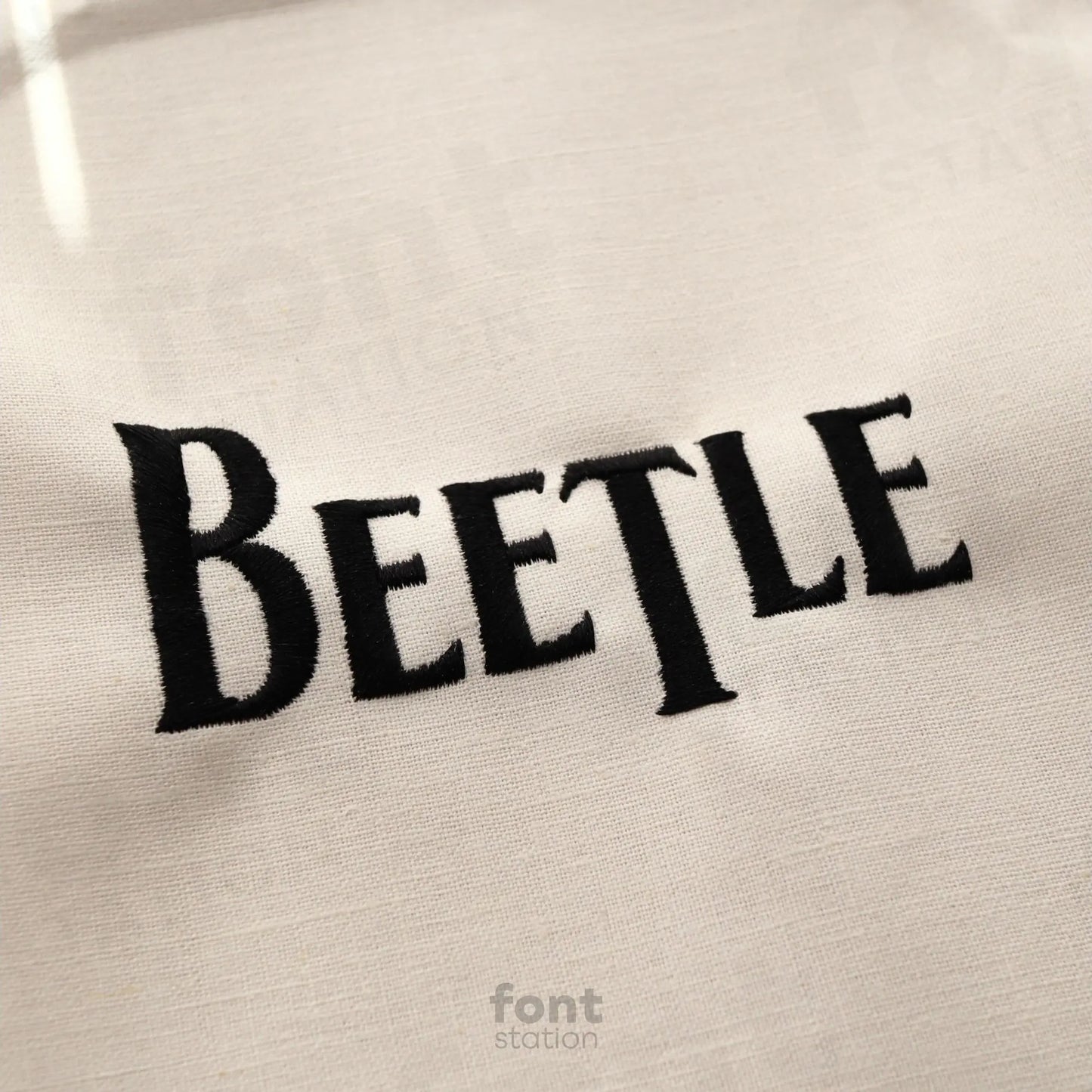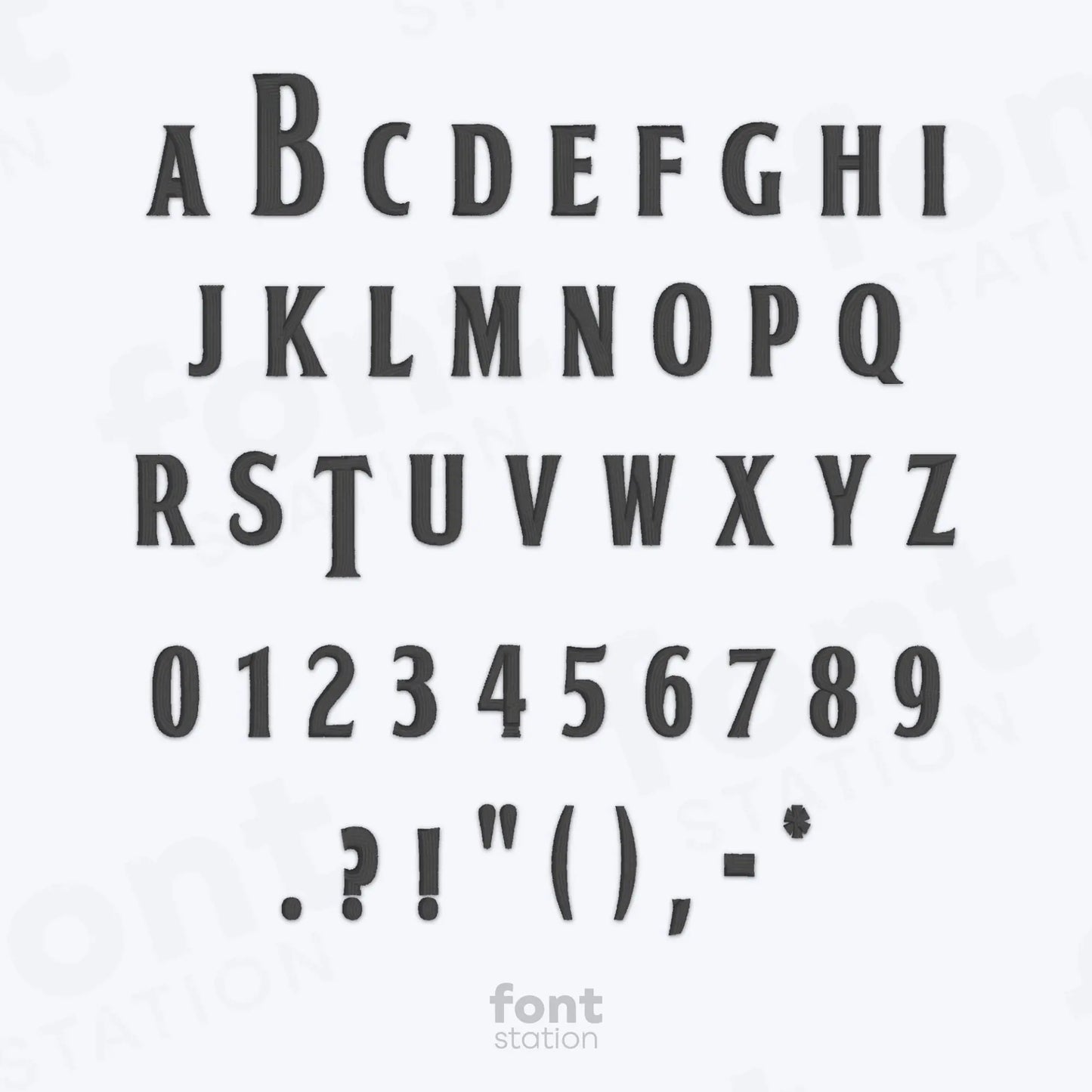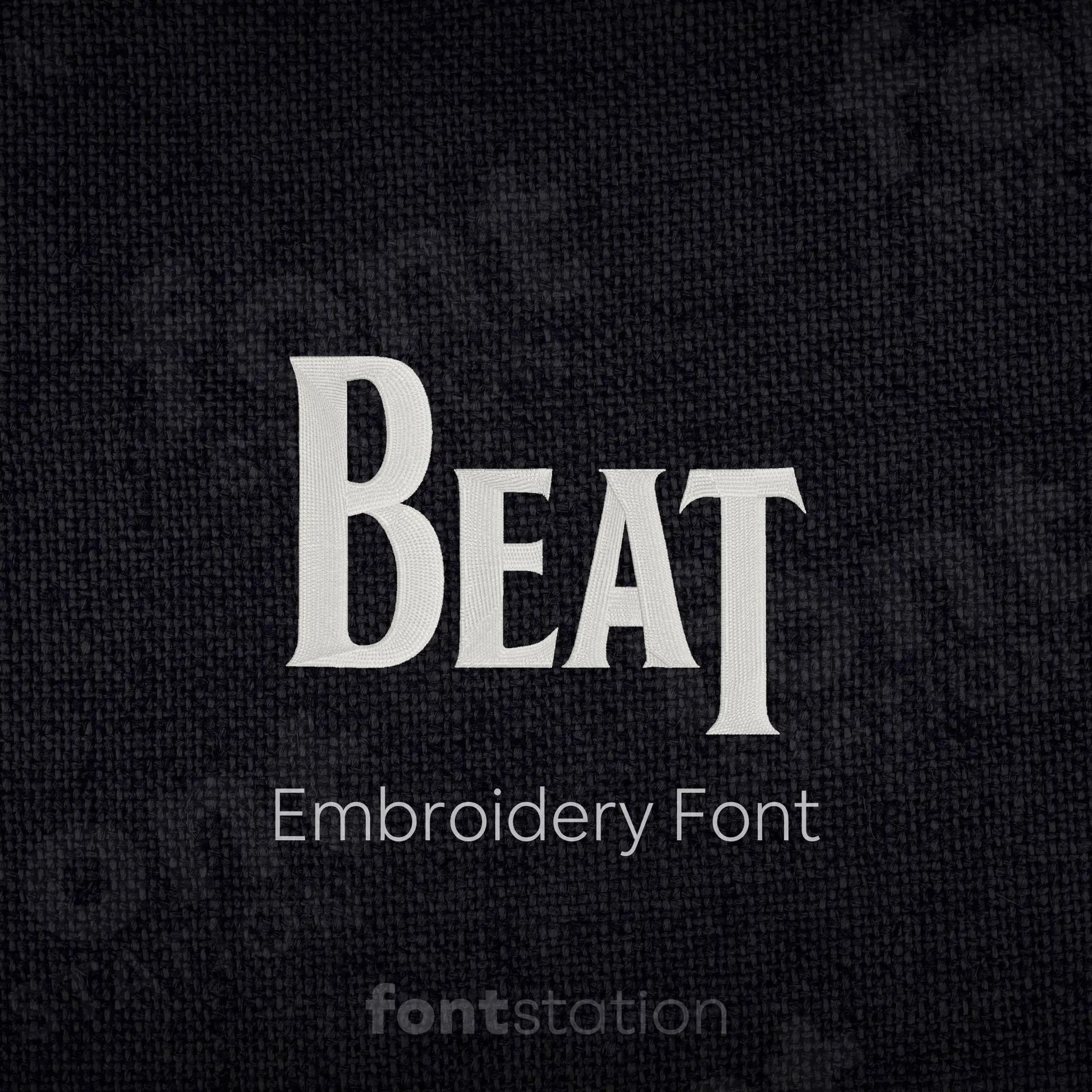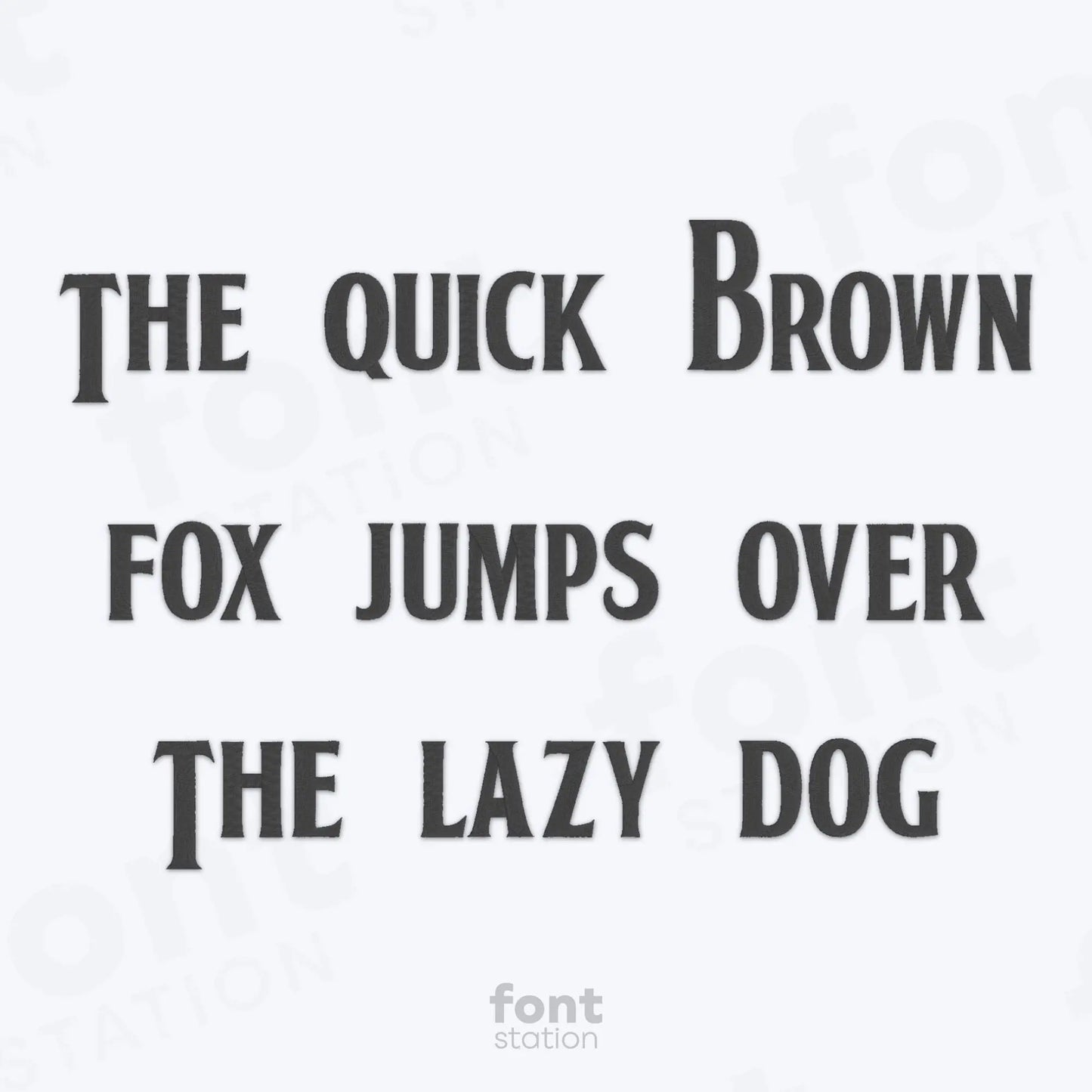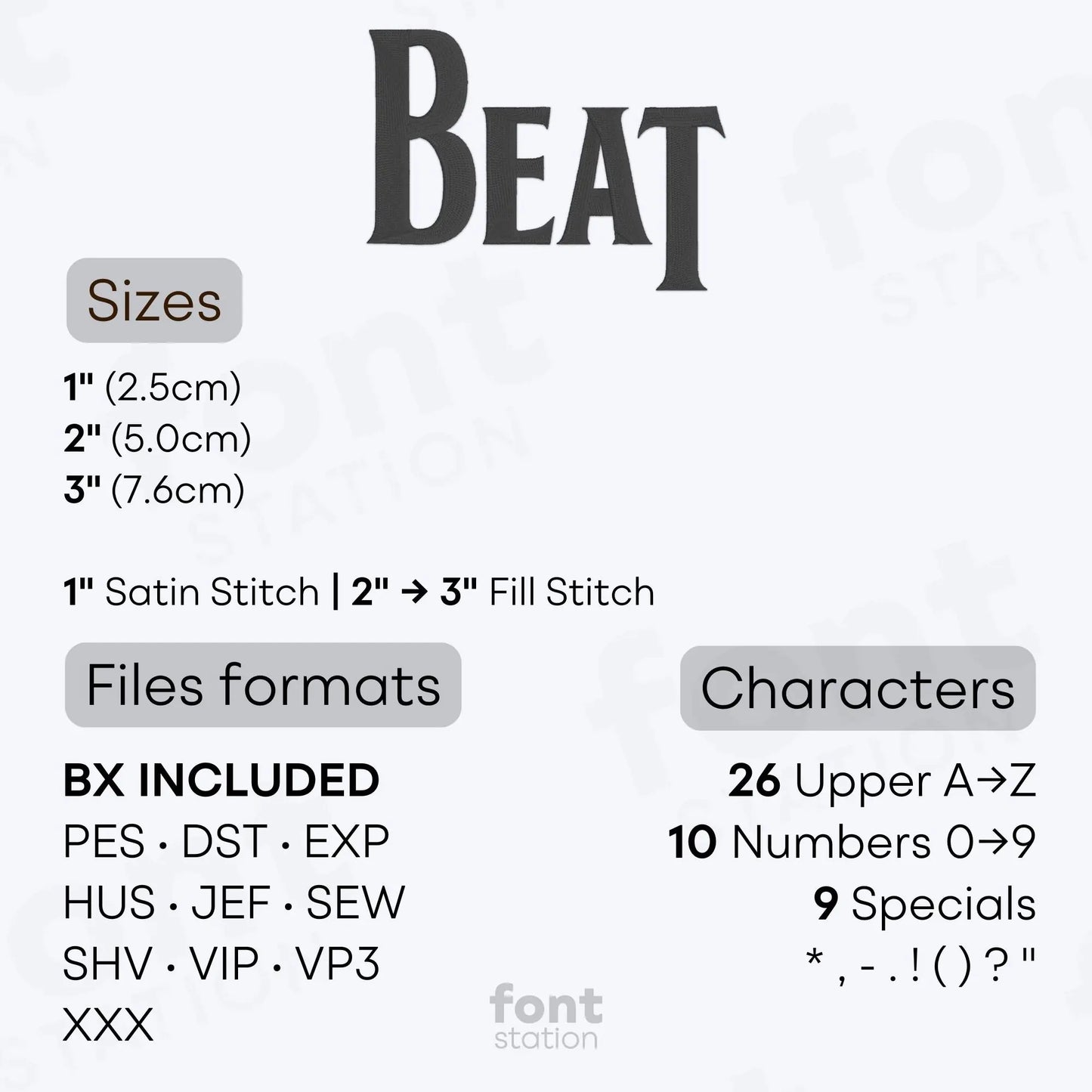
Beat Embroidery Font
Our Beat embroidery font is a bold display alphabet that brings rock attitude to your designs. These thick letters stitch cleanly on any embroidery machine, making them perfect for standout embroidery projects full of rhythm, edge, and creativity.
About the Beat Embroidery Font
Characters: 26 uppercase, 10 numbers, and symbols * , - . ! ( ) ? "
Our Beat embroidery font brings bold rock energy and rhythm to your embroidery designs.
This bold display embroidery alphabet features thick, high-impact letters that stitch cleanly on any fabric, perfect for adding rock-inspired personality to names, slogans, patches, and custom gifts. The Beat embroidery font delivers standout style for bold embroidery projects and is fully digitized to stitch smoothly on any embroidery machine. Available in BX, PES, DST, JEF, EXP, VP3, and HUS formats, it's a must-have font for edgy, creative designs that make a statement.